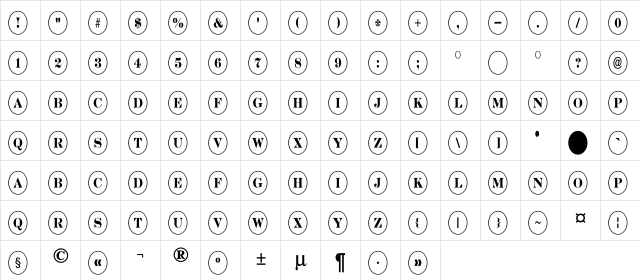
a_DiscoSerifNrOvl Regular Font Preview
a_DiscoSerifNrOvl Regular
Design Context for a_DiscoSerifNrOvl Typeface
a_DiscoSerifNrOvl carries the refined structure of traditional serif typography, with bracketed terminals and considered proportions that communicate credibility and craft.